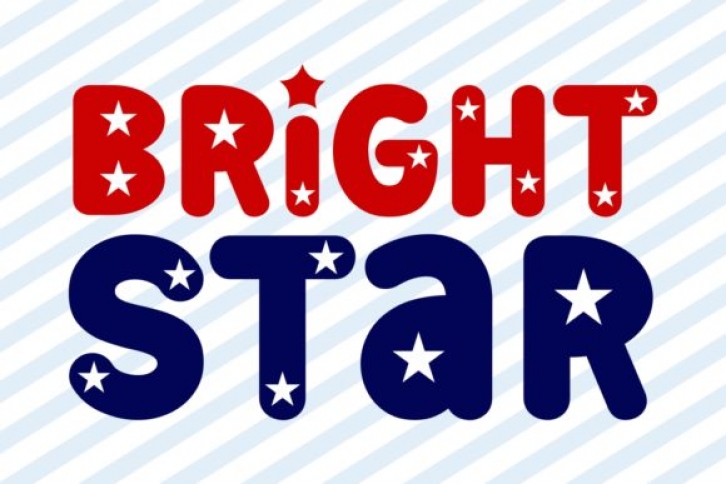
Bright Star is a beautiful display font. It features star-themed characters that will look amazing in your crafting projects. Get inspired by its authentic feel and use it to create gorgeous wedding invitations, beautiful stationary art, eye-catching social media posts, and cute greeting cards.